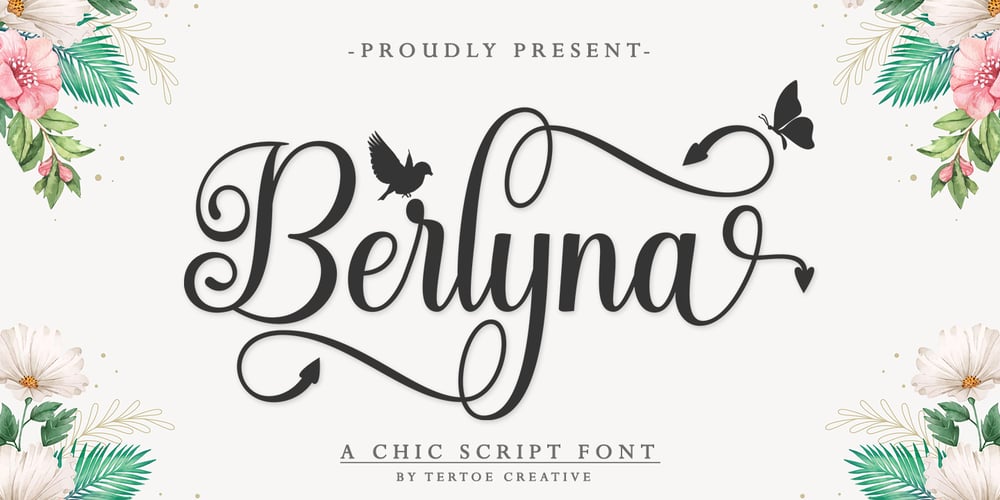
Berlyna Font Family was designed by Khai Dir and published by Tertoecreative. Berlyna contains 1 styles and family package options. Berlyna is a magical script font carefully created with a touch of elegance. Whether you’re looking for fonts for Instagram or calligraphy scripts for DIY projects, this font will turn any creative idea into a true piece of art!This font is PUA encoded which means you can access all glyphs and swashes with ease!